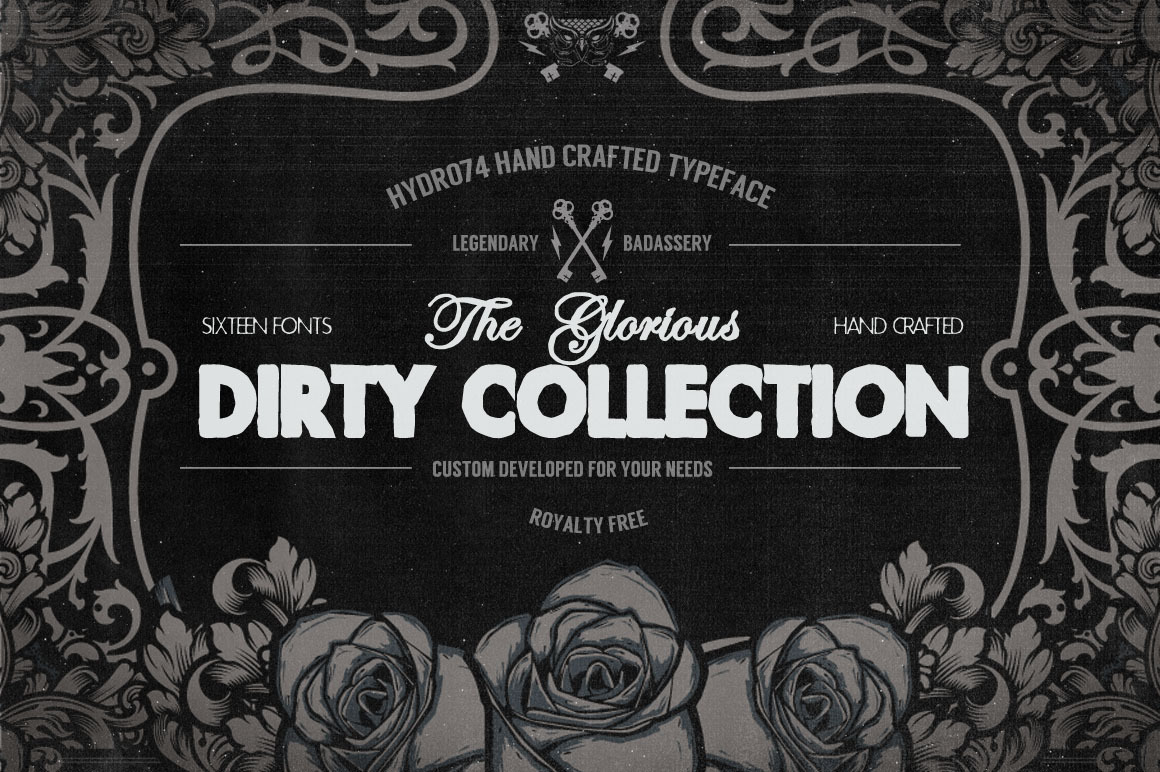
The Dirty Collection - 16 Fonts
This is a customized developed font created by Hydro74. The style and structure is mean to be more of a tool than a core typeface for you to be able to customize and create something unique. All files are as is since these typefaces are made out of pride and passion for the desire and need to create.